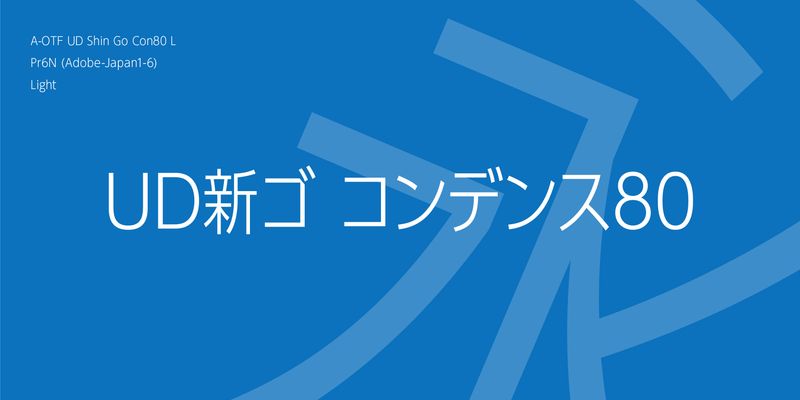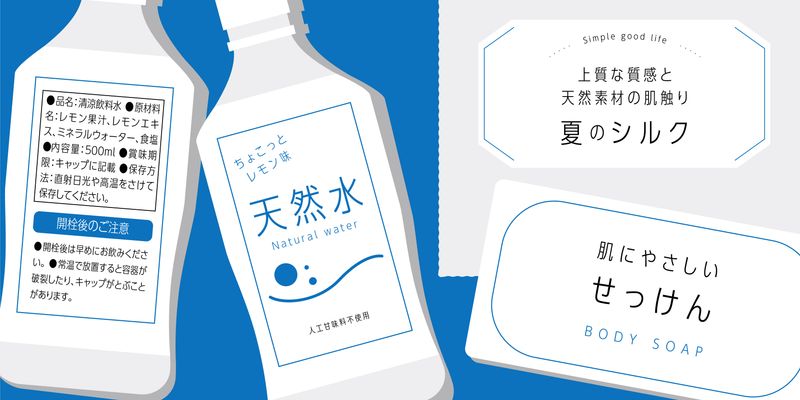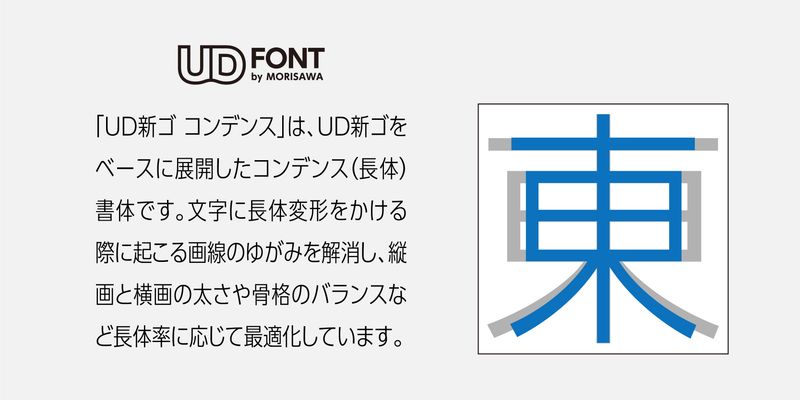
A condensed typeface is useful when packing a lot of information into a limited amount of space without compromising legibility and readability. Thanks to its design versatility, it is useful not only for food product ingredient information, instructions on packages, leaflets, book’s bellyband, and web banners, but also for giving an accent to headlines, taglines, and body text. UD Shin Go Condensed is developed based on the UD Shin Go sans serif type as a solution to the problem of stroke distortions resulting from horizontal scaling. The weights of the vertical and horizontal strokes and the structural balance are optimized to effectively display more information even in a limited space.